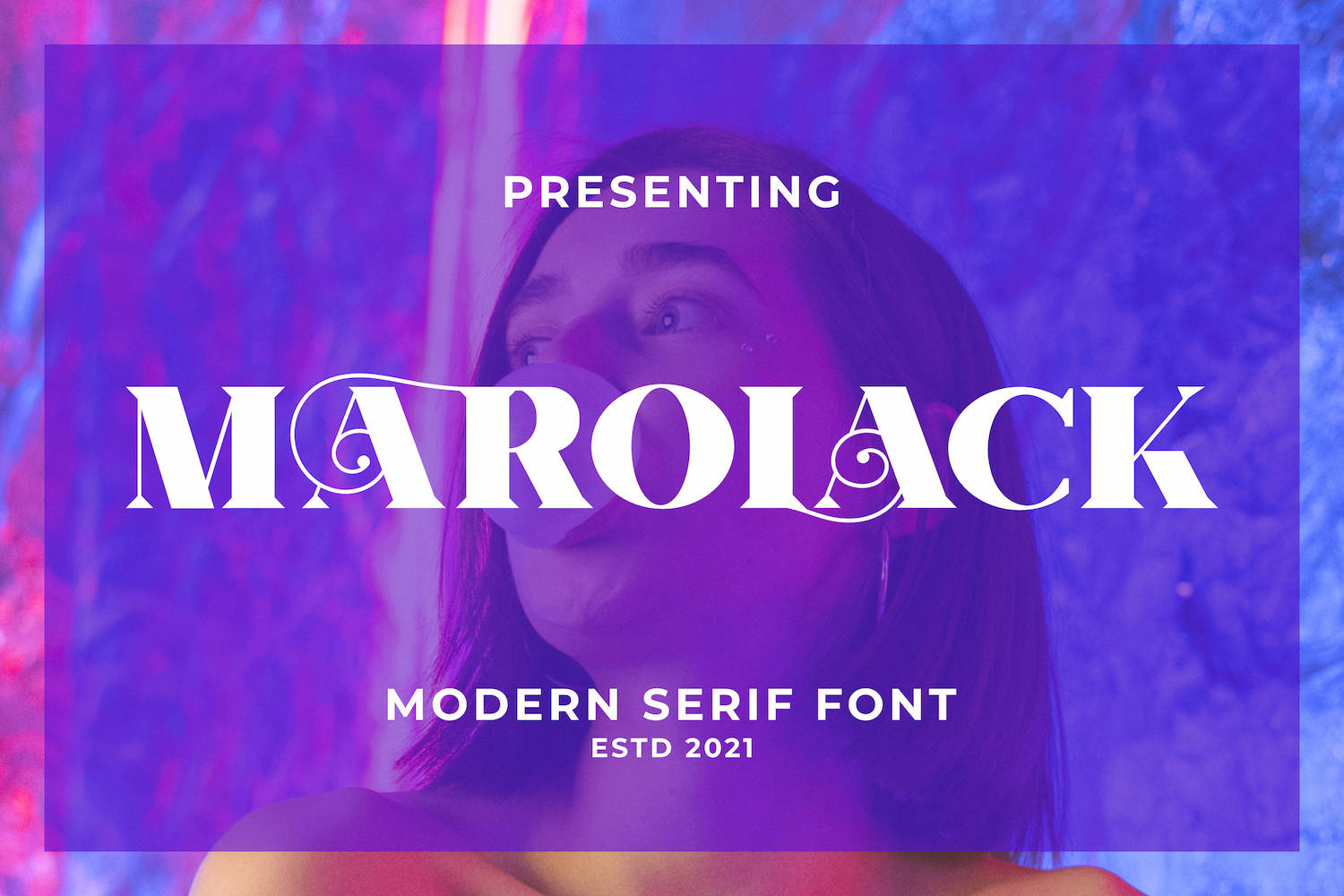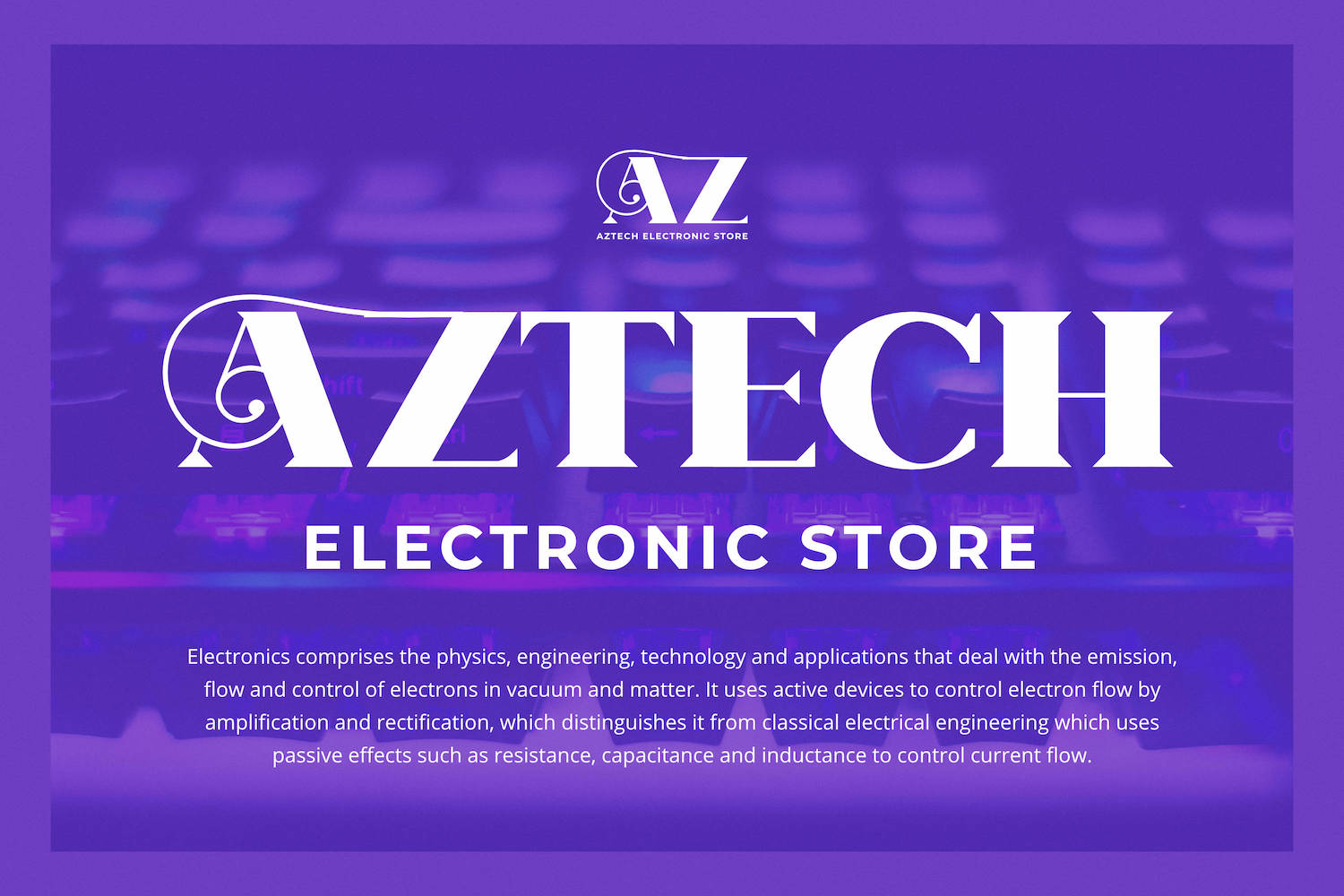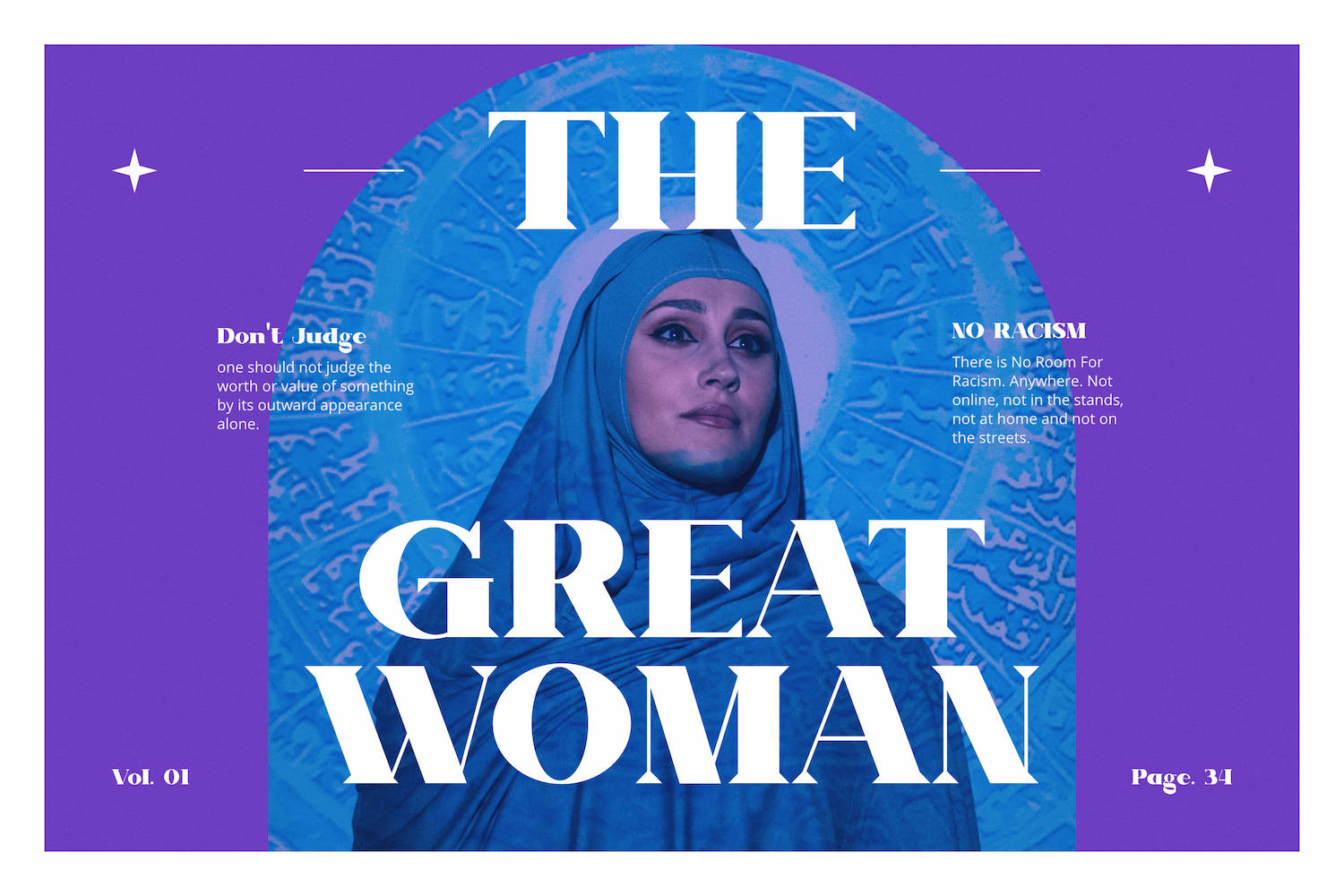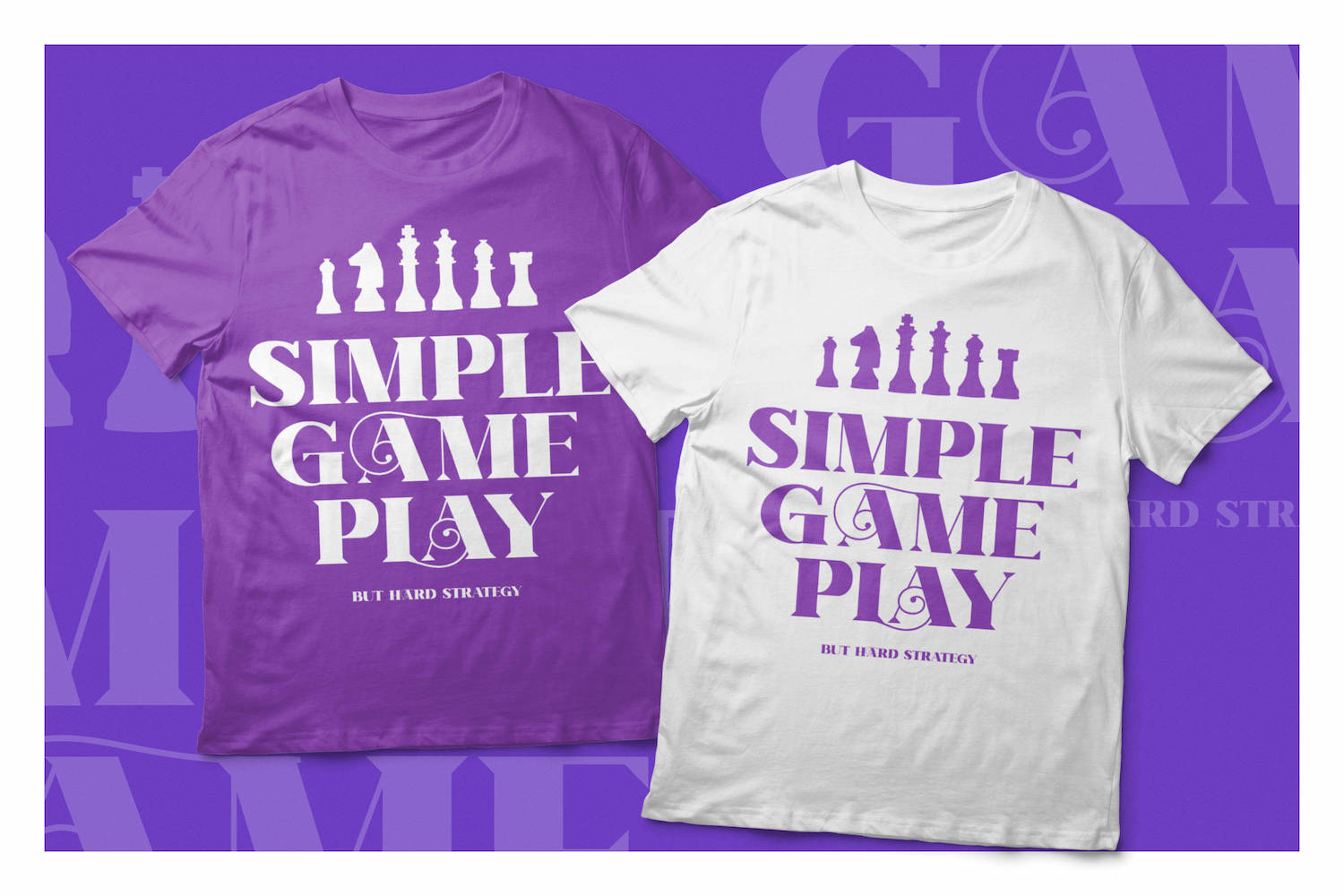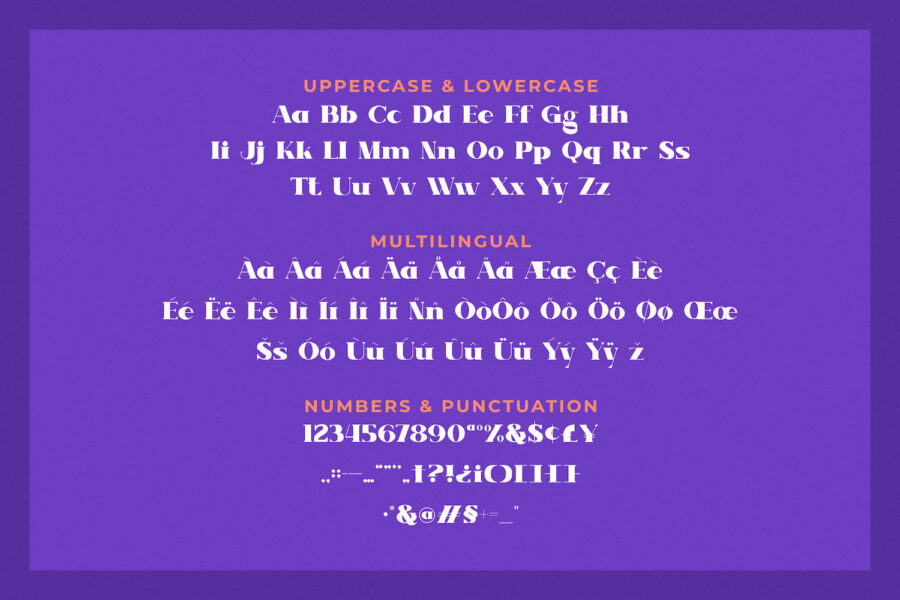
Marolack is a modern serif font that merges classic elegance with a bold, artistic twist. Featuring beautiful swashes and stylish alternate characters, Marolack is designed to make headlines stand out, logos look luxurious, and branding feel exclusive. Each glyph carries a unique flair, adding sophistication to both print and digital designs.
This typeface supports multilingual characters, numbers, and punctuation, making it incredibly versatile for a wide range of creative uses. Whether for magazine covers, posters, t-shirts, or editorial layouts, Marolack delivers both charm and authority in a single stylish package.
Marolack